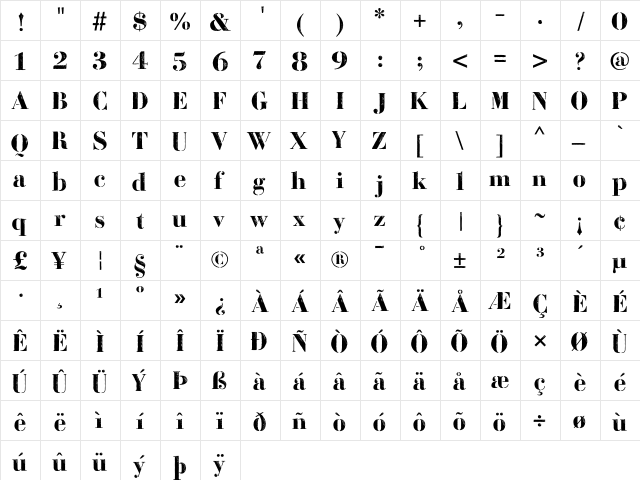
Bodoni Fragile Dirt Regular
Design Context for Bodoni Fragile Dirt Typeface
Bodoni Fragile Dirt is a composed and adaptable typeface that performs quietly and consistently across a wide range of design contexts.